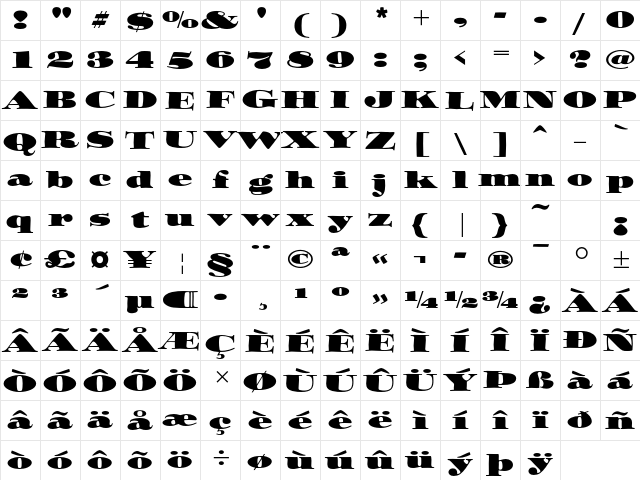
ITC Ozwald Std Regular
Designer: David Farey
Design Context for ITC Ozwald Std
ITC Ozwald Std is a composed and adaptable typeface that performs quietly and consistently across a wide range of design contexts.